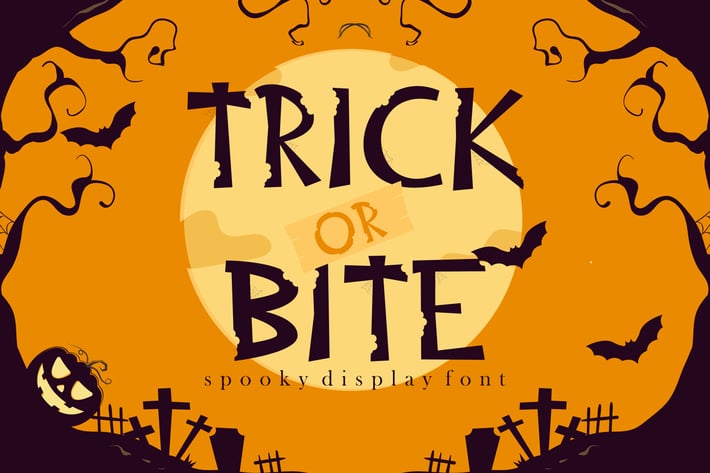
Trick or Bite - Halloween Font
Trick or Bite is a spooky and fun display font. It is perfectly suitable for any Halloween-related project or crafty idea! The only limit is your imagination.